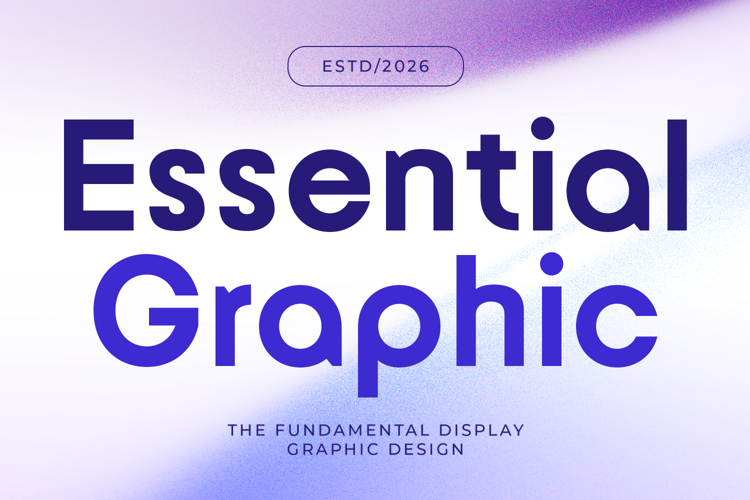
Boundex - Font
Boundex is a modern display typeface designed to provide a strong personality and visual impact. Featuring confident letterforms and a contemporary structure, this font offers a bold yet refined aesthetic, perfect for various design projects. Ideal for logo design, branding identity, posters, advertising, packaging, and social media graphics, Boundex merges clarity, balance, and distinctive style in every character. Its robust shapes and modern proportions make it exceptionally suitable for impactful headlines and brand-focused typography, ensuring your designs stand out with sophistication and style.